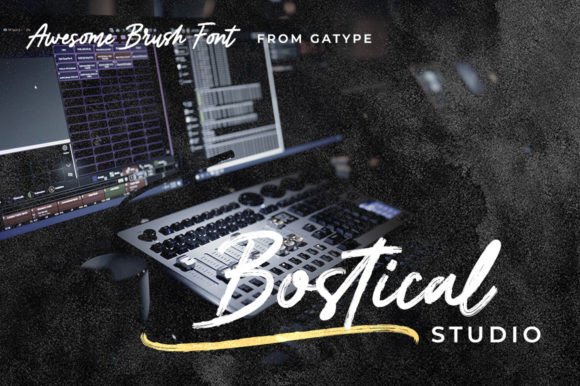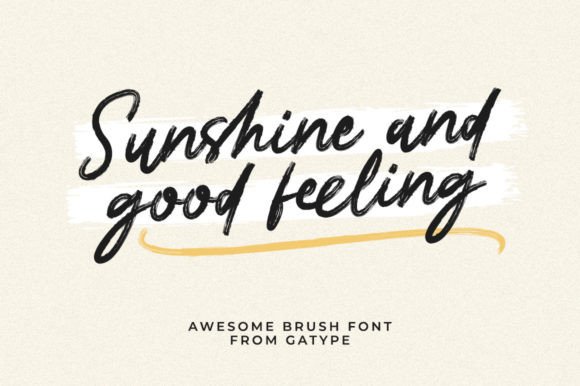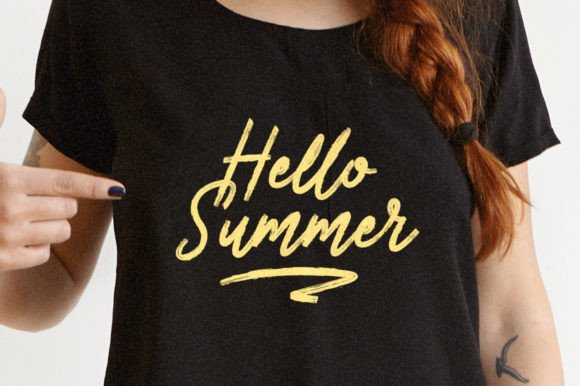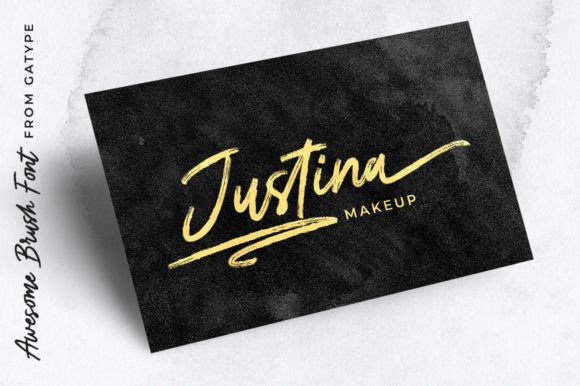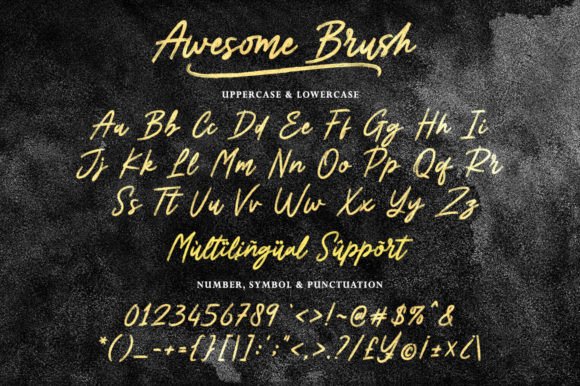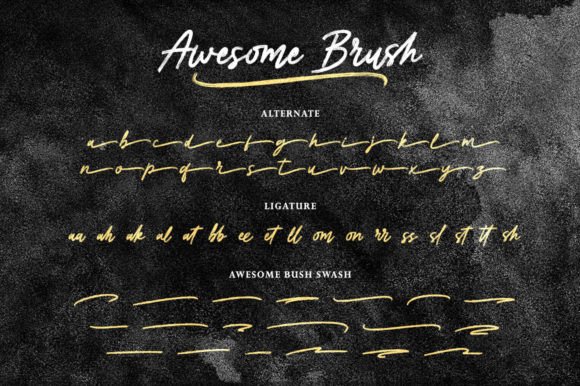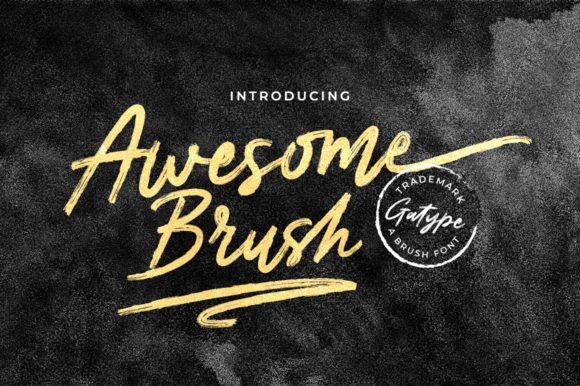
The Awesome Brush Font: A Designer’s New Best Friend
I’ll never forget the time I was working on a book cover design project, and my client asked for a font that would make their title stand out. I scoured the internet, tried countless fonts, but nothing seemed quite right. That was until I stumbled upon the Awesome Brush font. It’s been a game-changer ever since! 💡
- ✨ Unique and eye-catching handwritten style that’s perfect for making a statement
- ✅ Highly versatile and can be used for a wide range of design projects, from book titles to logos and packaging
- 🎨 Beautifully crafted brush strokes that add a touch of personality to any design
- 💻 Great for both digital and print designs, with clear and crisp lines that don’t pixelate
While the Awesome Brush font is amazing, there are a few things to keep in mind: 🤔
- ⚠️ Some of the letters might be a bit too stylized for very formal or traditional designs
- ⚠️ May require some manual kerning to get the spacing just right, especially for larger text
- Take advantage of OpenType features like glyphs and stylistic alternates to add more variety to your text
Exploring OpenType Features
One of the best things about the Awesome Brush font is its OpenType features. These allow you to access a wide range of glyphs, stylistic alternates, and other special characters that can add more variety and interest to your designs.
The Story Behind Awesome Brush
The Awesome Brush font was designed by a talented typographer who wanted to create a font that would capture the feeling of handwritten brush strokes. With its unique blend of elegance and playfulness, Awesome Brush is perfect for designers who want to add a touch of personality to their work.
| Font Name | Awesome Brush Font |
| Author | gatype |
Q: What kind of designs is Awesome Brush best suited for?
A: Awesome Brush is a versatile font that can be used for a wide range of designs, from book titles and logos to packaging and posters.
Q: Is Awesome Brush available in different weights or styles?
A: Awesome Brush is available in a range of styles, including regular, bold, and italic. You can also experiment with different OpenType features to create unique variations.